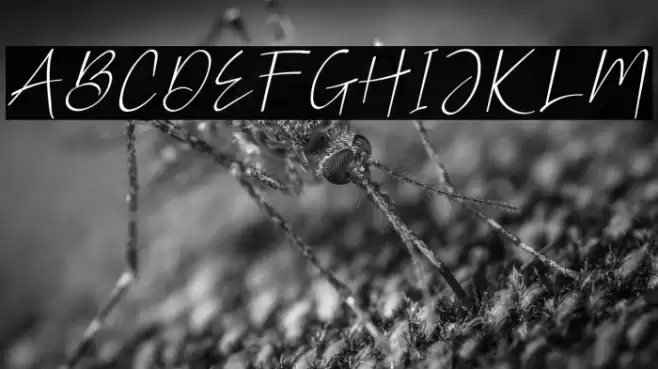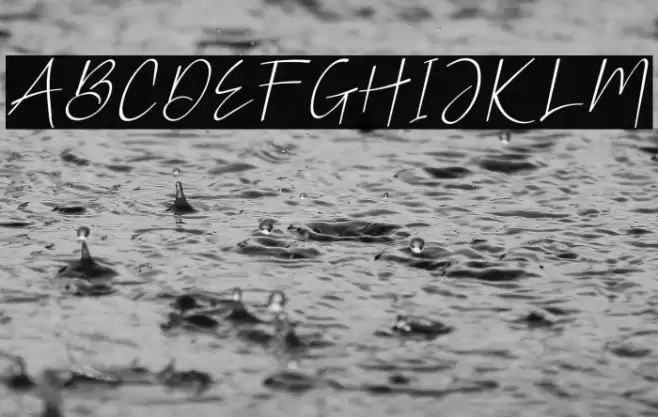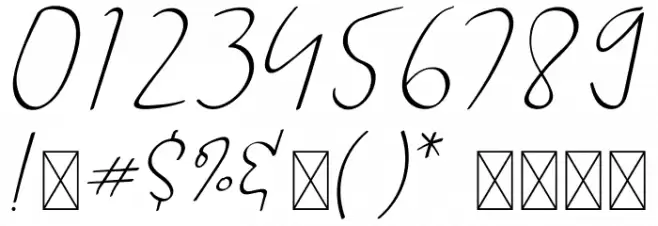
MellyThoughtieRegular Font
MellyThoughtieRegular Description
This font features a flowing, handwritten style with a casual and elegant appearance. The letters are connected in a fluid manner, giving it a natural and personal touch. The uppercase letters maintain a consistent height and are slightly slanted, while the lowercase letters exhibit a more pronounced slant, enhancing the script-like quality. The numerals are distinct and maintain the same fluidity as the letters, ensuring readability. Special characters are integrated seamlessly, complementing the overall aesthetic. This font is versatile, suitable for projects that require a personal or artistic flair.
A flowing, handwritten script font with a casual elegance from Uncategorized fonts.
- Font: MellyThoughtieRegular
- Proposed Projects: Ideal for wedding invitations, personal branding, greeting cards, and artistic projects.
- Use Case: Logos, Headlines, Invitations